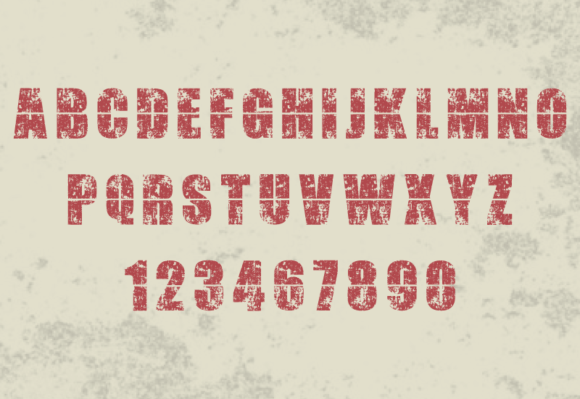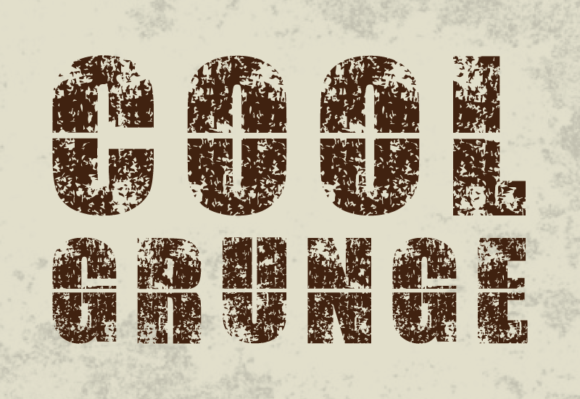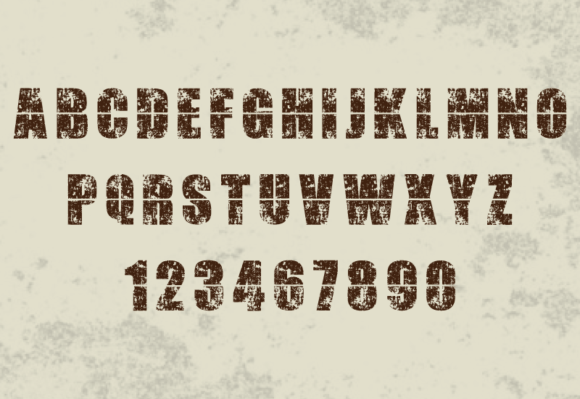
Introduction to Cool Grunge Font
This grunge and unique sans-serif font is a real statement-maker, with its edgy and raw design.
Cool Grunge’s rough lines and distressed texture create a sense of grit and rebellion, making it perfect for anything that demands a touch of boldness and individuality, from posters and album covers to streetwear branding .
Key Features of Cool Grunge Font
Why Choose Cool Grunge Font?
Cool Grunge Font offers exceptional quality and versatility, making it a valuable addition to your design toolkit. Whether you’re creating for personal projects or commercial use, Cool Grunge Font delivers professional results.